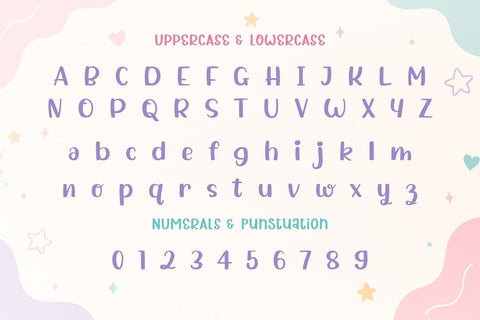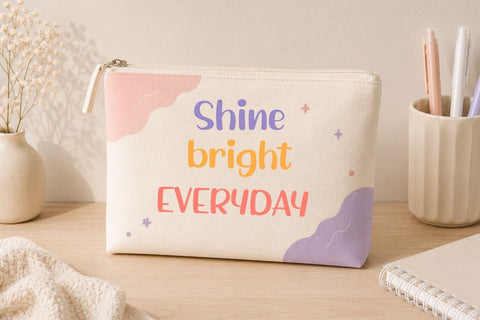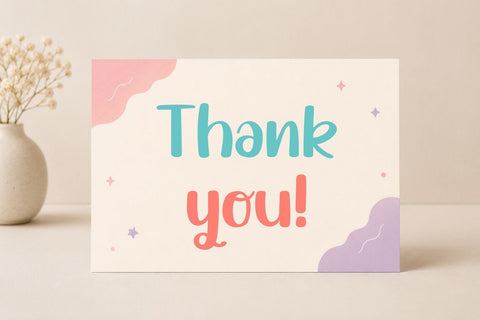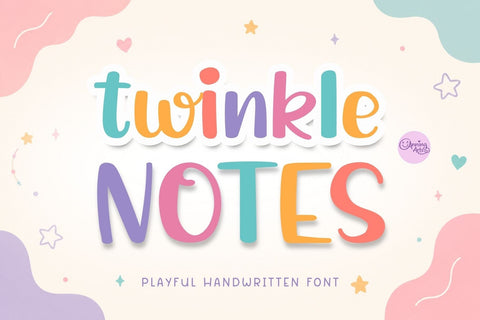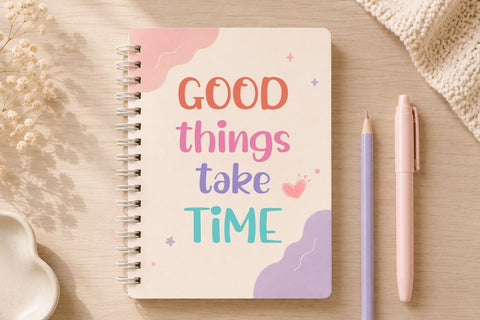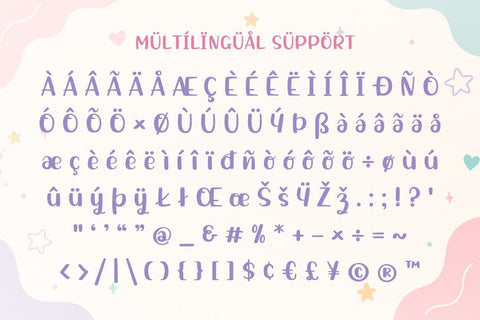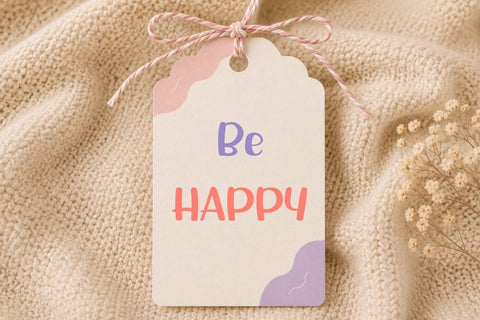
Twinkle Notes - Playful Handwritten Font
Twinkle Notes is a playful handwritten font with rounded shapes, clean lines, and a cheerful handwritten style. Designed to be easy to read while maintaining a fun personality, it works beautifully for both children's projects and everyday creative designs. It includes uppercase and lowercase letters, numbers, punctuation, and multilingual characters for maximum versatility.